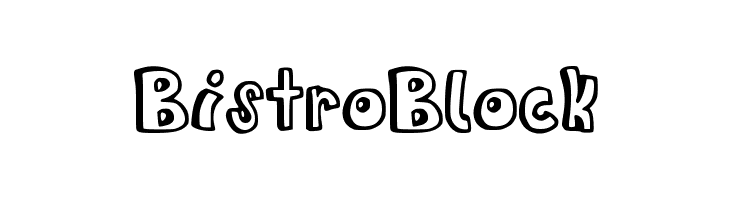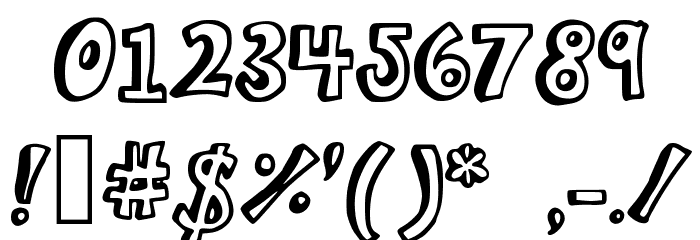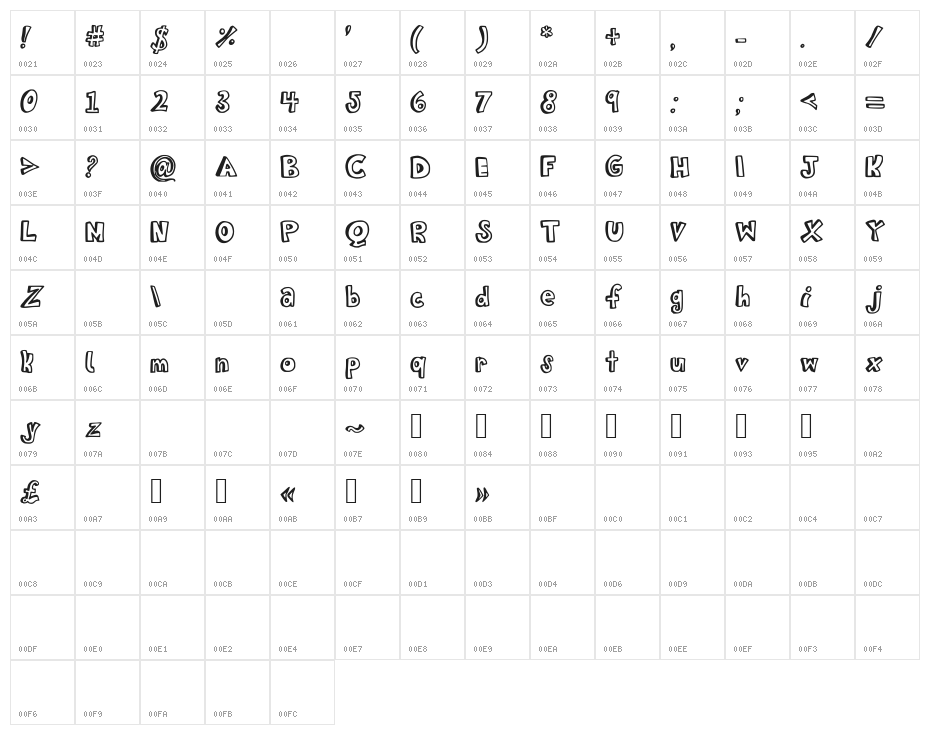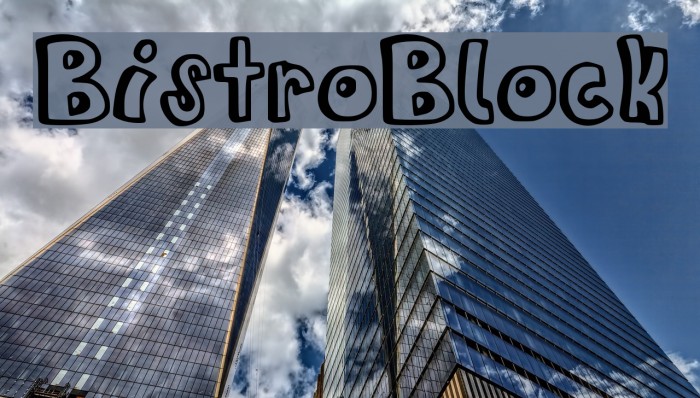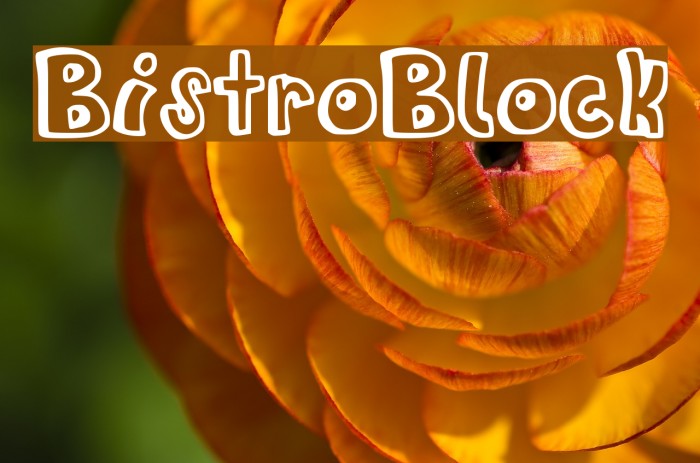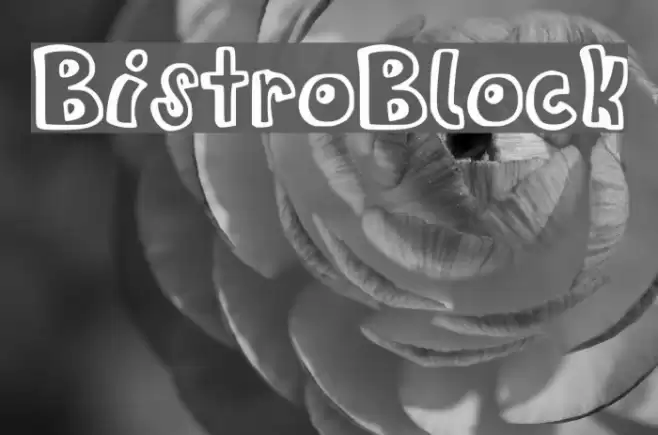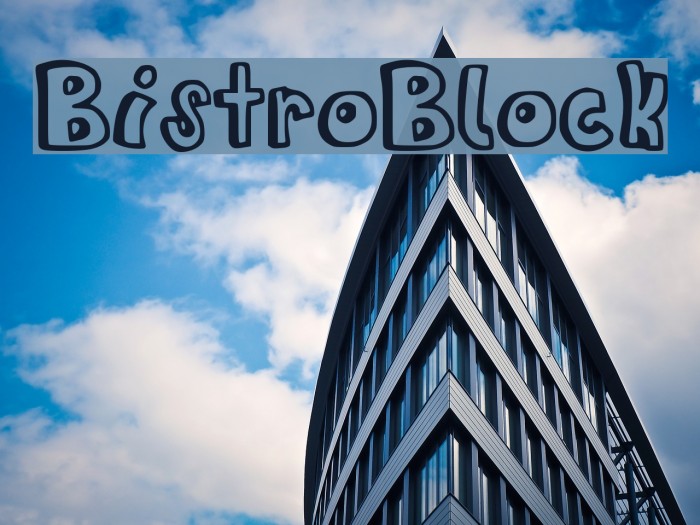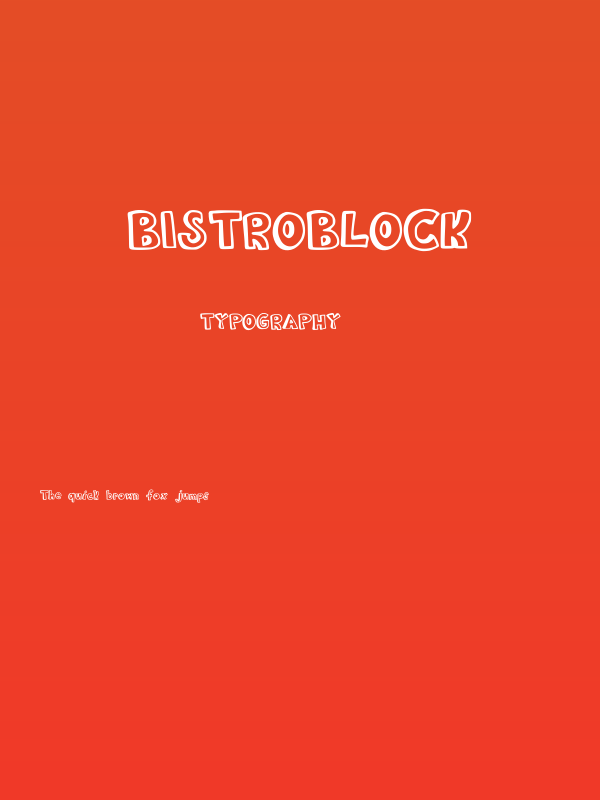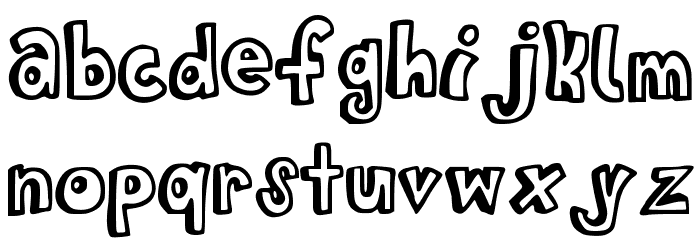
BistroBlock Font
BistroBlock Description
This playful and bold font features thick, rounded characters with a hand-drawn appearance. The letters are outlined, giving them a cartoonish and whimsical feel. Each character has a unique, slightly irregular shape, adding to the font's charm and casual style. The uppercase and lowercase letters maintain a consistent style, with numbers and special characters following suit. The overall look is fun and approachable, making it ideal for creative and informal designs.